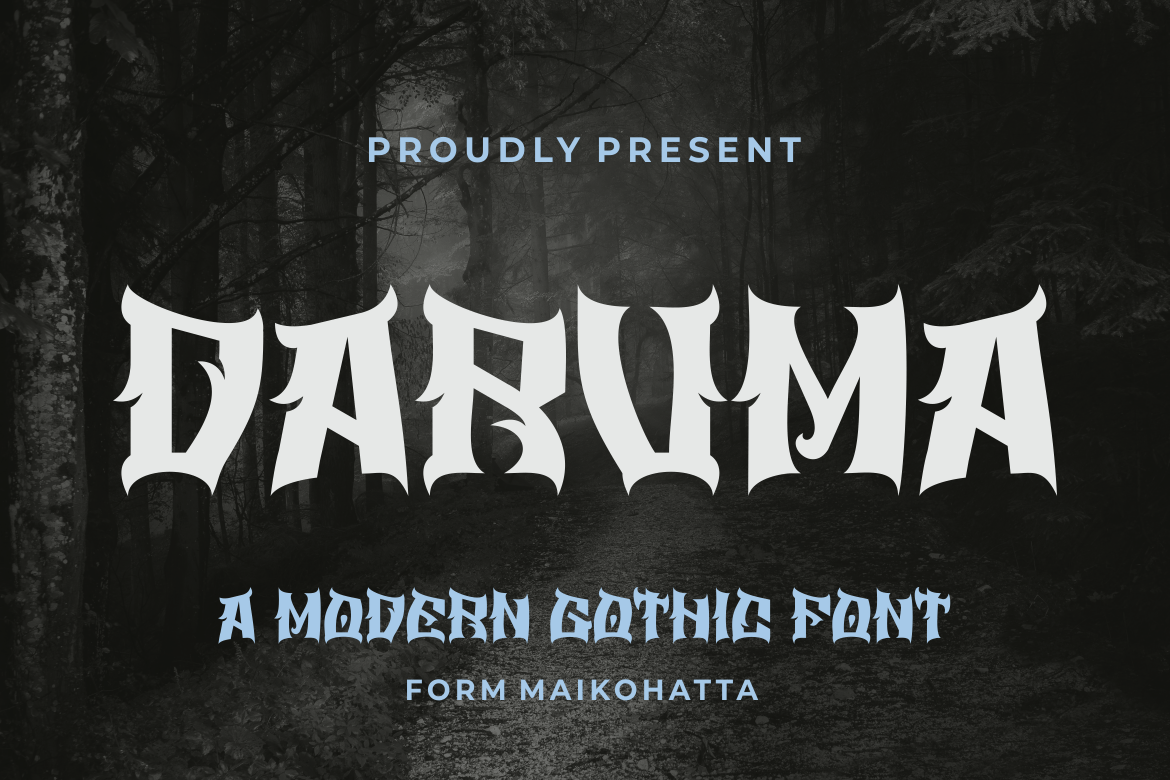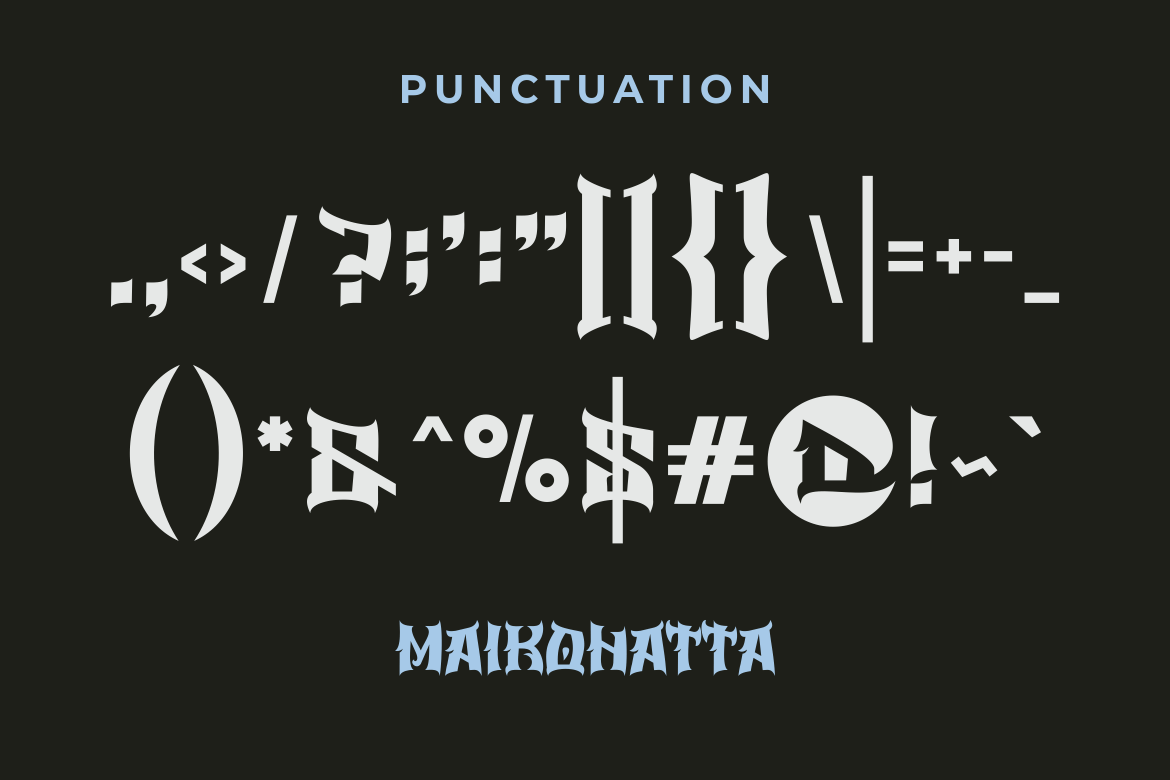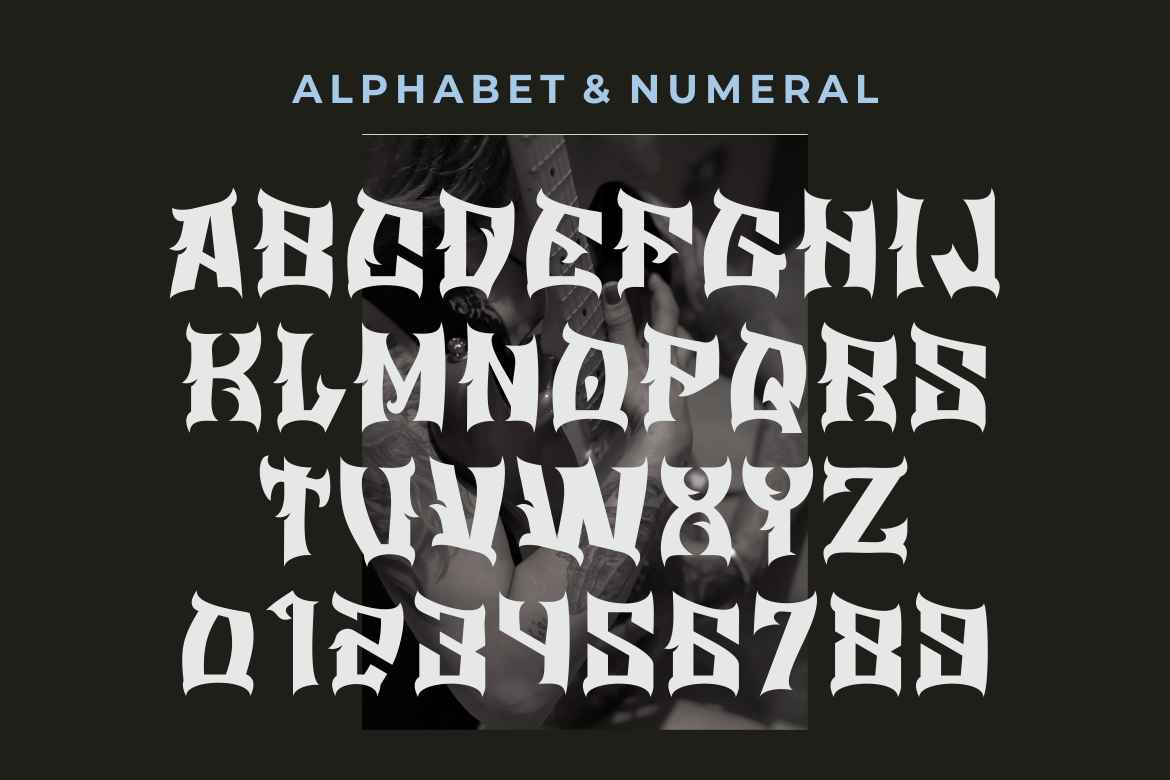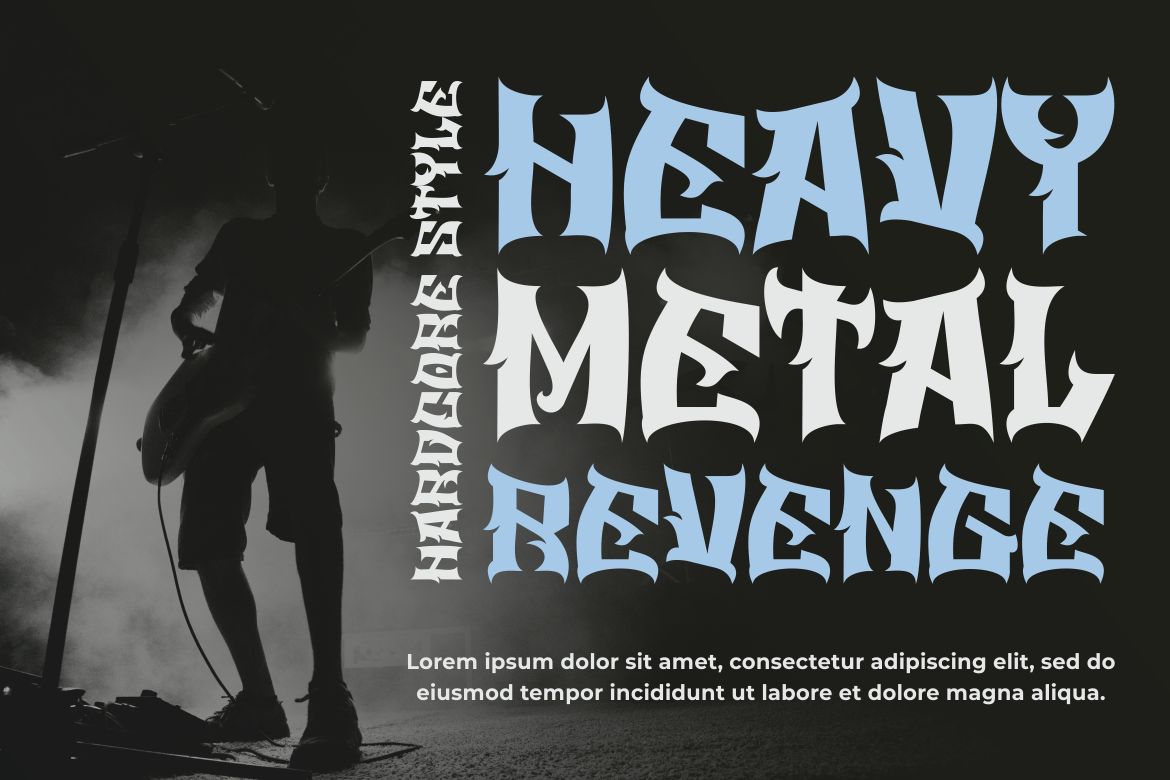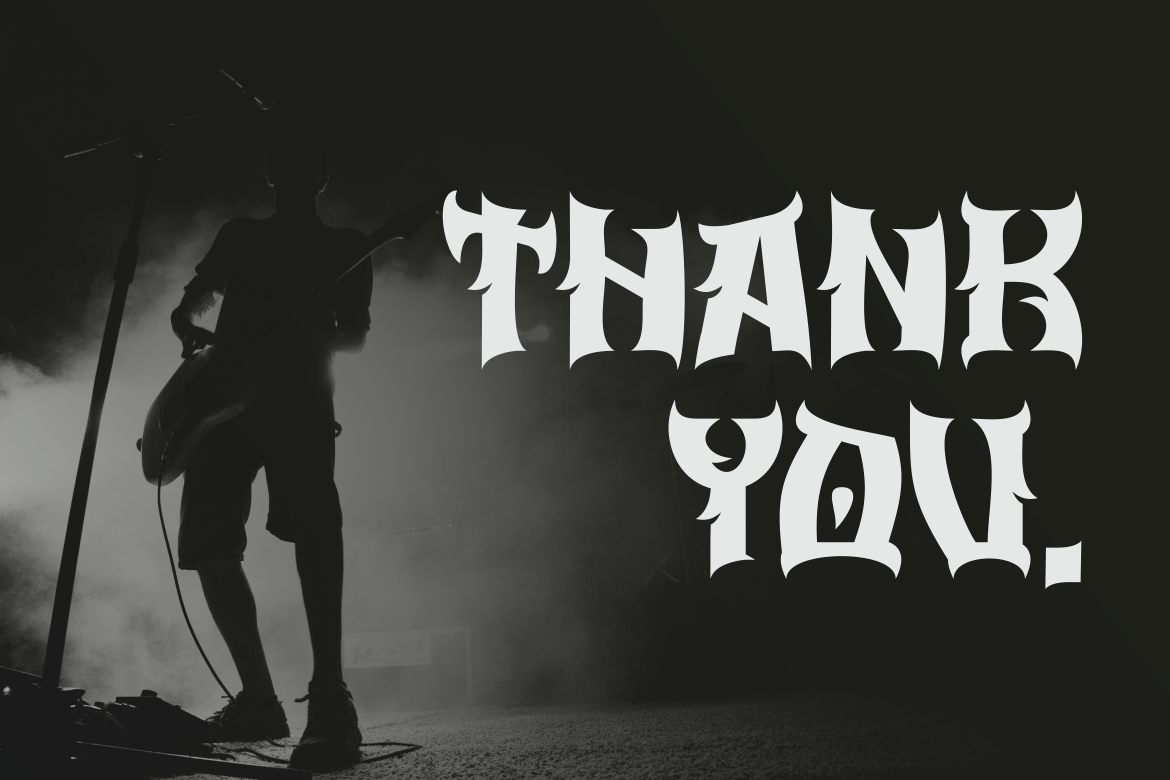
DARUMA FONT – Modern Gothic Font
Introducing our new product DARUMA FONT – Modern Gothic Font
DARUMA FONT is a classic styled font that can be applied to book covers, movie titles, rock albums, arcade games or even vintage beers! It’s the perfect choice for a decorative gothic look that remains legible at a smaller size.